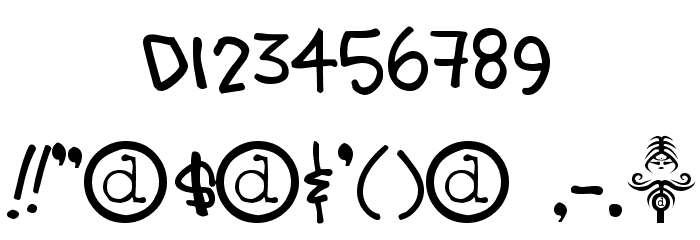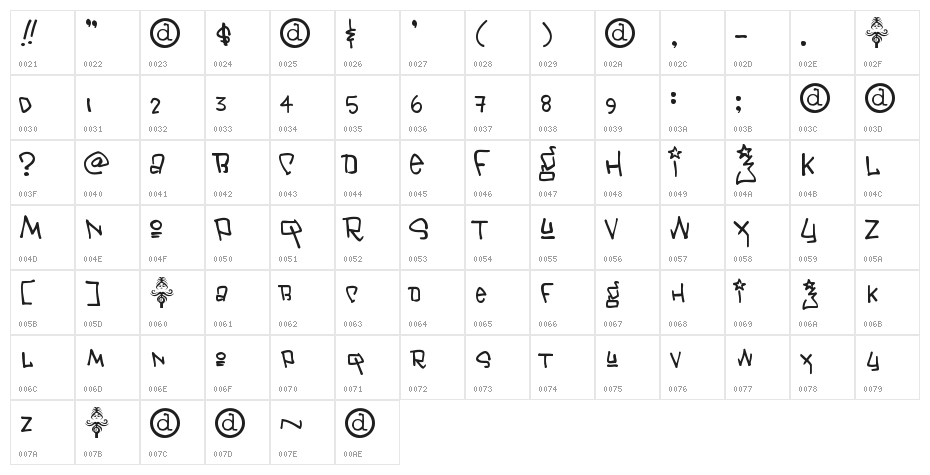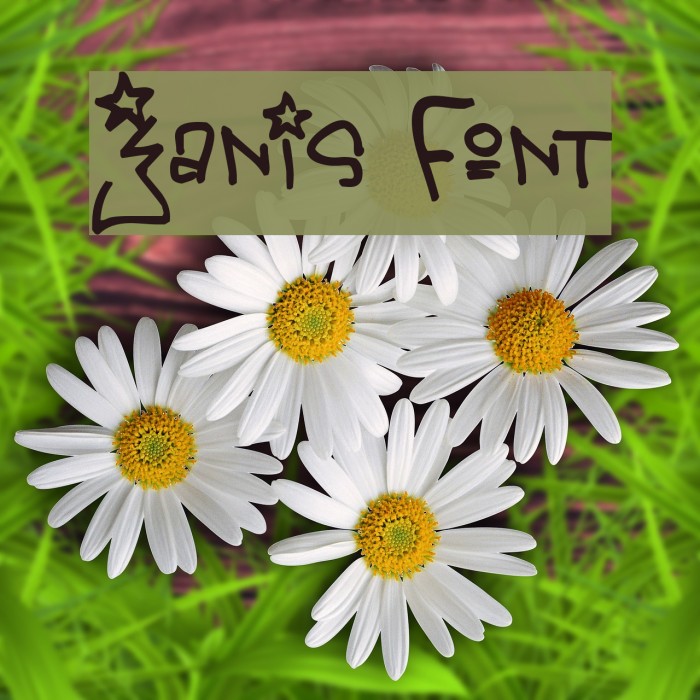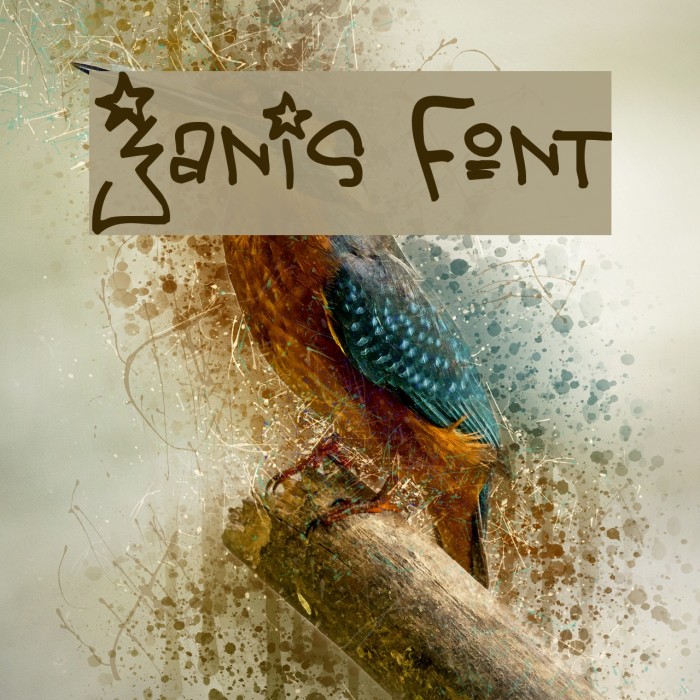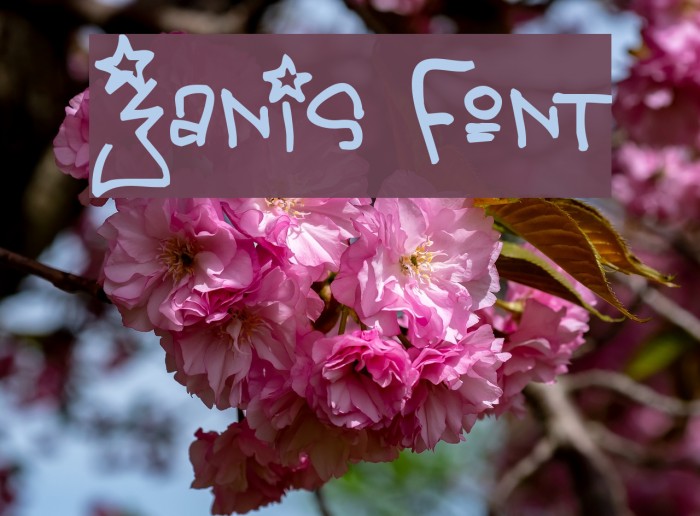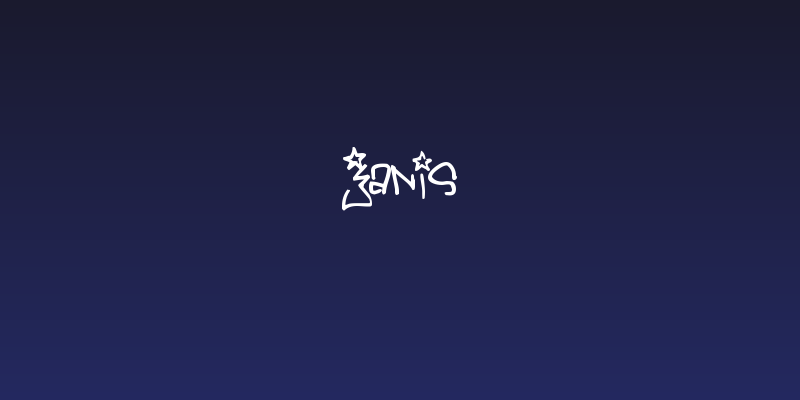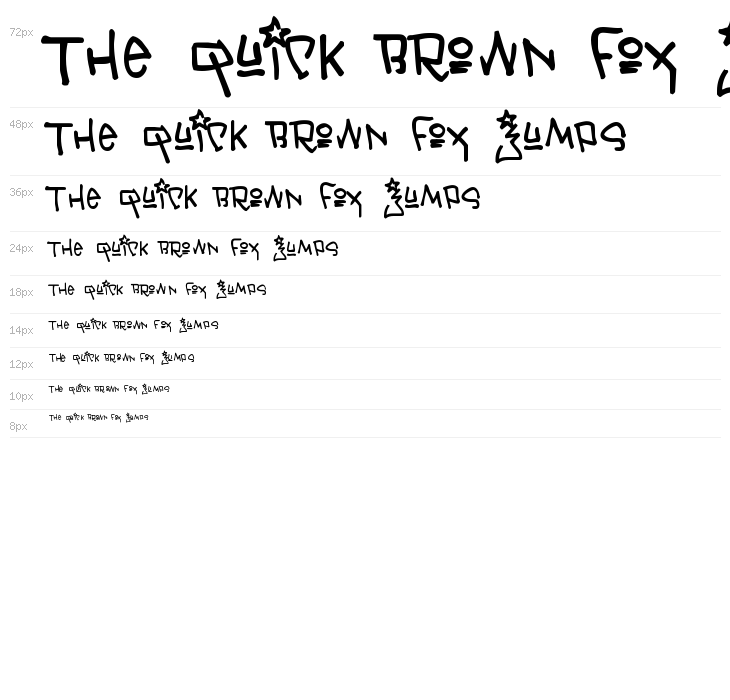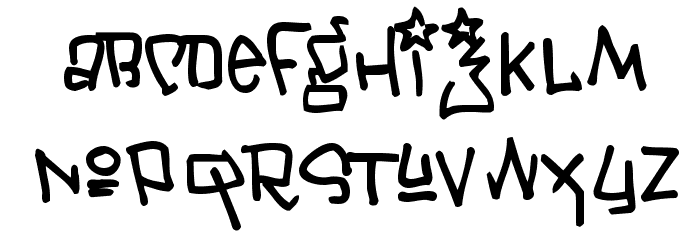
Janis Font
This font exhibits a playful and quirky style, characterized by its irregular and whimsical letterforms. Each character is uniquely crafted, with some letters featuring decorative elements like stars and curls, adding a touch of creativity and fun. The strokes are bold and uneven, giving the font a hand-drawn appearance that is both informal and artistic. The overall design is reminiscent of graffiti or street art, making it stand out with its unconventional and expressive nature. The font includes a full set of uppercase and lowercase letters, numbers, and a variety of special characters, all maintaining the same lively and dynamic aesthetic.
| Use Case | Logos, Posters, Creative projects |
| Proposed Projects | Ideal for creative projects such as posters, album covers, children's books, and branding for artistic or unconventional businesses. |